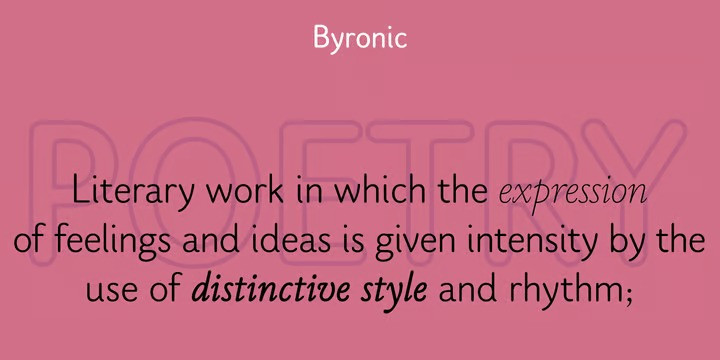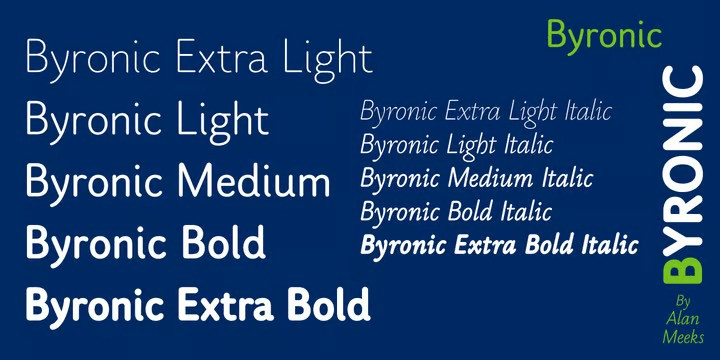
Byronic Font
Byronic Sans Serif Font is soft modern sans-serif but with an antique style lower-case. The rounded end soft look gives Byronic a friendly soft look whilst still retaining a classical typographic appearance. A very clean style and slightly condensed it is excellent for text setting and headline with an unusual loser case that compliments the caps perfectly.
Available in a range of 5 weights and 5 italics and a Latin Pro character set of 430 characters including ranging numerals and small caps.